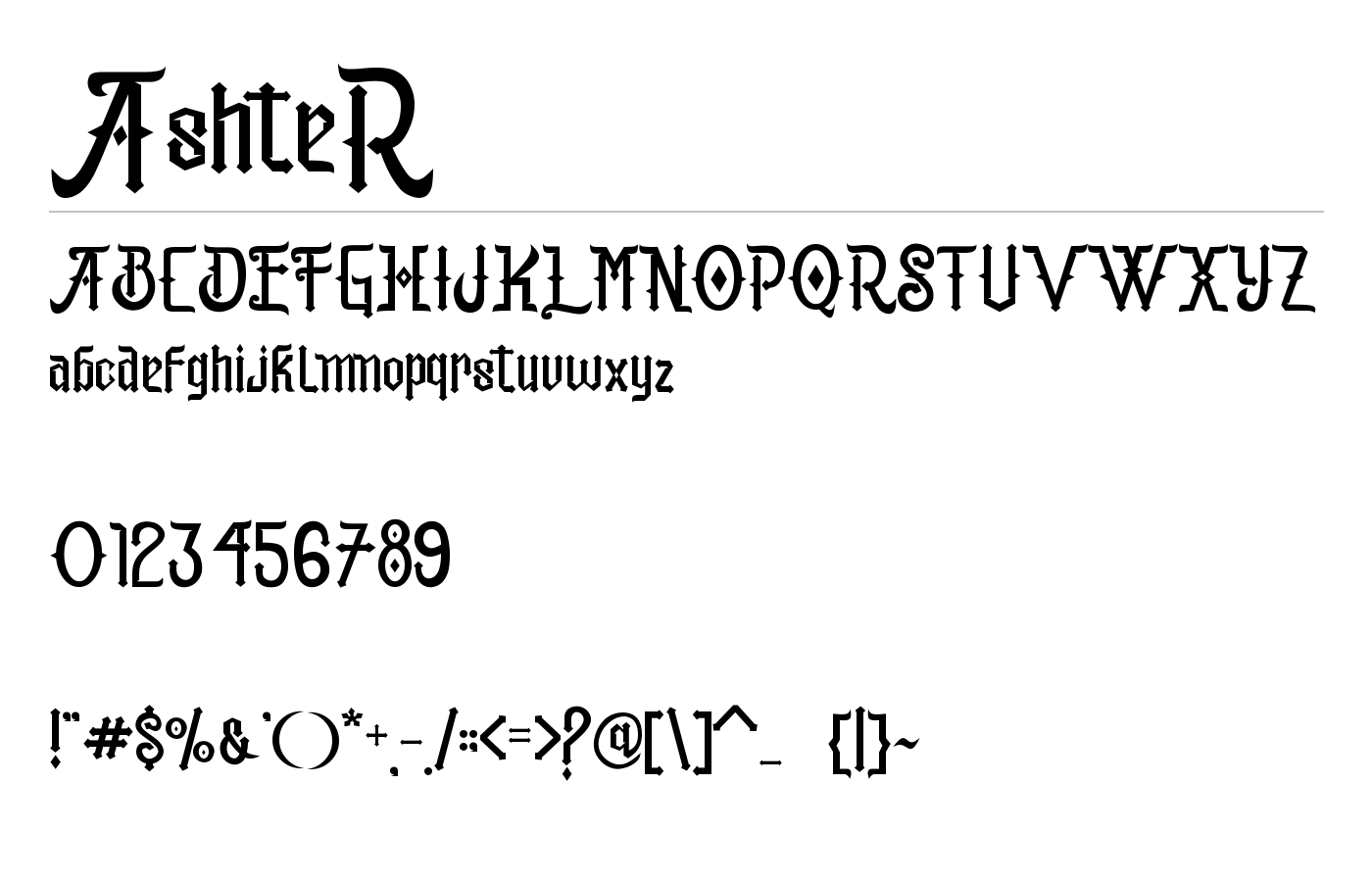
AshteR is a decorative serif font with a bold, gothic-inspired style that features sharp, angular strokes and intricate details, giving it a vintage, medieval feel. Its distinct letterforms and high contrast between thick and thin lines make it ideal for headlines, logos, or branding that wants to evoke a strong, historic, or mysterious atmosphere. This font stands out best in display settings where its unique character can be fully appreciated.
AshteR Font
About AshteR Font
| Font family | AshteR Font |
| Designer | ABDUL GHOFUR |